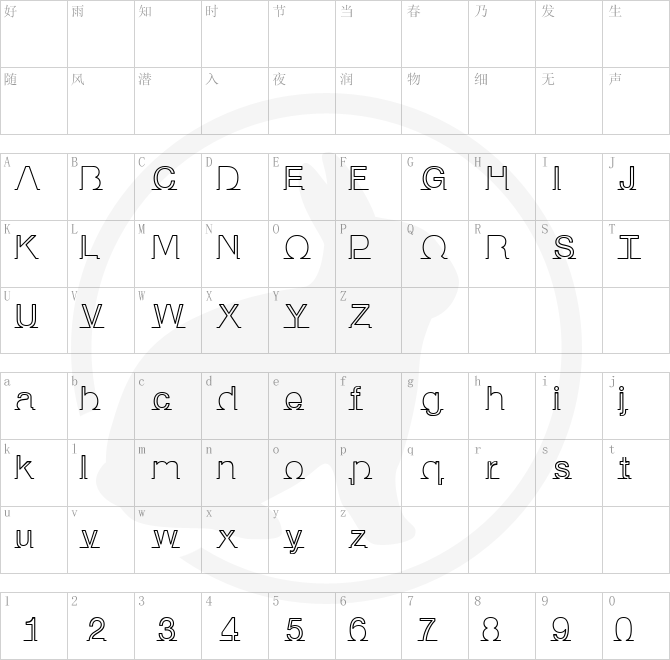
- Font Name:I am online with u
I-am-online-with-u.ttf is a very beautiful artistic font, I-am-online-with-u.ttf is widely used in the design and printing of various books and pictures,I-am-online-with-u.ttf has a strong visual impact,I-am-online-with-u.ttf is a commonly used font in newspapers, magazines and books, and is used in posters, e-commerce Poster design, store design, logo design, font design and other fields.I-am-online-with-u.